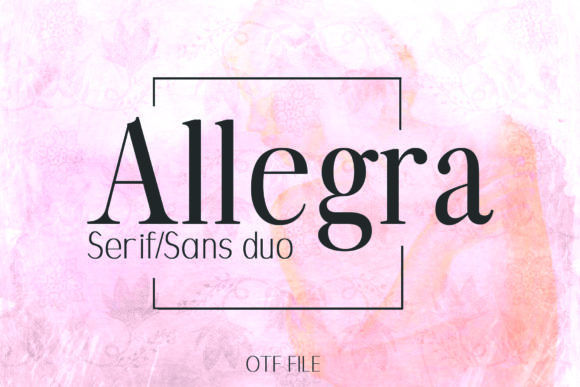
The Ultimate Font Duo for Designers: Allegra
I’ll never forget the struggle I faced while working on a project for a client who wanted a sophisticated yet modern look. I spent hours browsing through font libraries, but nothing seemed to fit the bill. That was until I stumbled upon the Allegra font duo. This stunning combination of a timeless serif and cool sans serif font has been a game-changer for me, and I’m excited to share my experience with you.
An Honest Review of Allegra Duo Font
• ✨ Versatility: Allegra’s versatility is unmatched. The serif font exudes elegance, while the sans serif font adds a touch of modernity.
• ✅ Legibility: Both fonts are incredibly legible, making them perfect for body text, headings, and even display text.
• 💡 OpenType Features: Allegra comes with a range of OpenType features, including stylistic alternates, ligatures, and glyphs, which can be easily accessed in compatible software.
While Allegra is an exceptional font duo, there are a few minor quirks to be aware of:
• 🤔 Limited availability of certain glyphs: Some glyphs, such as currency symbols, may not be available in every software or platform.
• ⚠️ Occasional kerning issues: As with any font, there may be occasional kerning issues, especially when using the sans serif font with certain letter combinations.
The Backstory Behind Allegra
Allegra was designed by a team of typographers who aimed to create a font duo that would cater to the needs of modern designers. Inspired by the elegance of traditional serif fonts and the simplicity of sans serif fonts, Allegra was born. The designers wanted to create a font that would be both timeless and versatile, making it perfect for a wide range of design projects.
Q: Is Allegra suitable for body text?
A: Yes, Allegra’s serif font is suitable for body text, offering excellent legibility and readability. However, the sans serif font may be better suited for headings and display text.